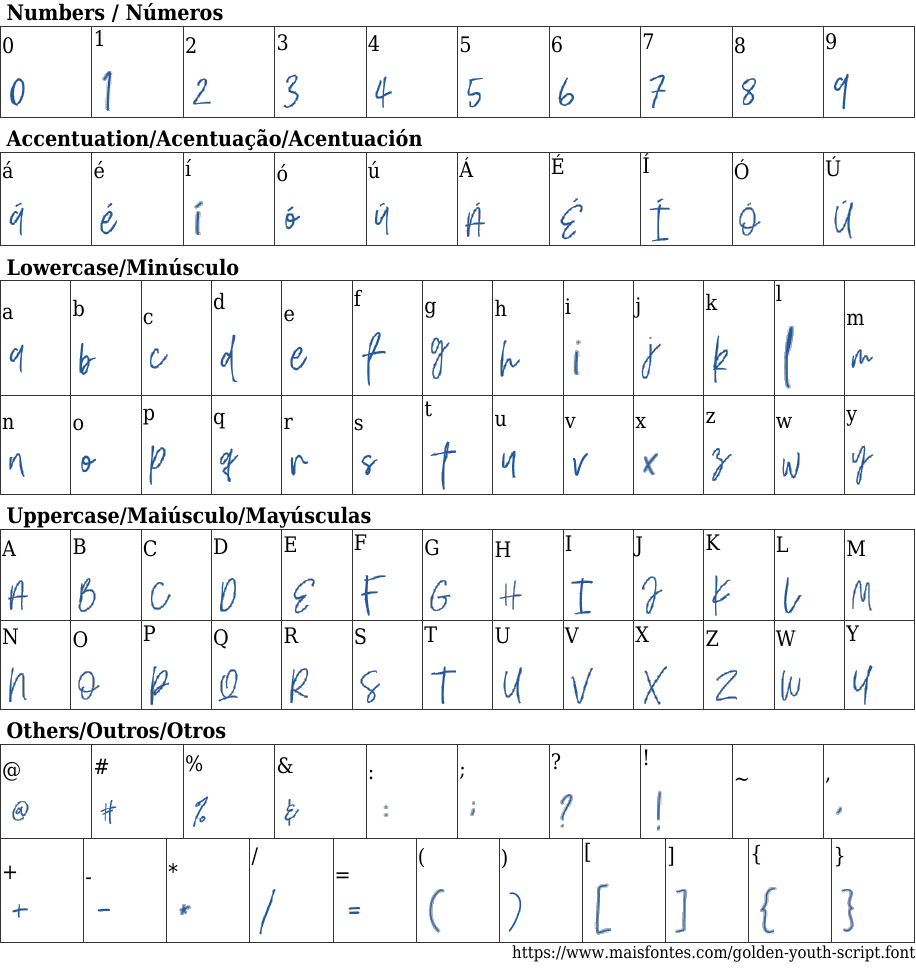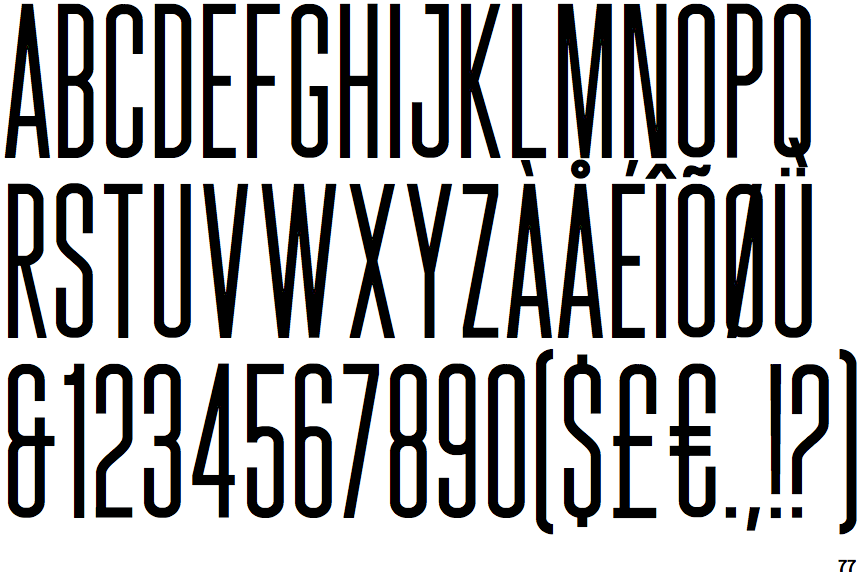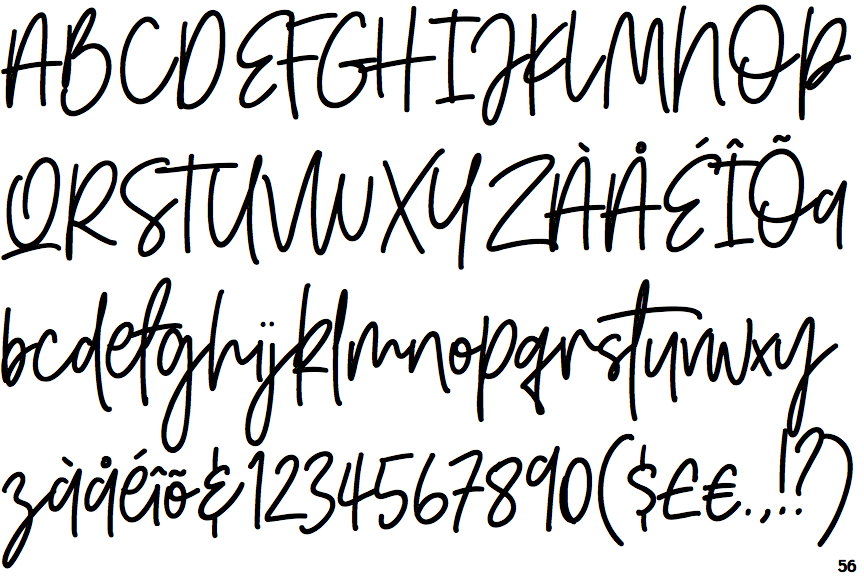
Golden Youth Font Free . Introducing the golden youth font duo; This combination of fonts lends a harmonious modernity and luxury. Logos & branding, packaging design, social media posts, advertisements & product designs. Link to purchase full version and commercial license : Golden youth font is free for personal use. The golden youth script font has a script typography and is great for elegant. Golden youth typeface consists of sans and script typefaces; The golden youth script alternative. A stylish & modern harmony of sans & script typefaces.
Golden youth font is free for personal use. Link to purchase full version and commercial license : Logos & branding, packaging design, social media posts, advertisements & product designs. Golden youth typeface consists of sans and script typefaces; The golden youth script font has a script typography and is great for elegant. This combination of fonts lends a harmonious modernity and luxury. The golden youth script alternative. Introducing the golden youth font duo; A stylish & modern harmony of sans & script typefaces.
Golden Youth Font Free The golden youth script font has a script typography and is great for elegant. Introducing the golden youth font duo; Golden youth typeface consists of sans and script typefaces; The golden youth script alternative. A stylish & modern harmony of sans & script typefaces. Link to purchase full version and commercial license : This combination of fonts lends a harmonious modernity and luxury. The golden youth script font has a script typography and is great for elegant. Golden youth font is free for personal use. Logos & branding, packaging design, social media posts, advertisements & product designs.
Golden Youth Script Free Font Download MaisFontes Golden Youth Font Free This combination of fonts lends a harmonious modernity and luxury. Logos & branding, packaging design, social media posts, advertisements & product designs. The golden youth script font has a script typography and is great for elegant. Golden youth typeface consists of sans and script typefaces; Link to purchase full version and commercial license : A stylish & modern harmony of. Golden Youth Font Free.
Identifont Golden Youth Caps Golden Youth Font Free The golden youth script font has a script typography and is great for elegant. Link to purchase full version and commercial license : Golden youth typeface consists of sans and script typefaces; Golden youth font is free for personal use. The golden youth script alternative. A stylish & modern harmony of sans & script typefaces. This combination of fonts lends. Golden Youth Font Free.
Golden Youth Font Duo on Behance Golden Youth Font Free Introducing the golden youth font duo; Golden youth typeface consists of sans and script typefaces; A stylish & modern harmony of sans & script typefaces. Link to purchase full version and commercial license : Logos & branding, packaging design, social media posts, advertisements & product designs. The golden youth script font has a script typography and is great for elegant.. Golden Youth Font Free.
Golden Youth Font Free werohmedia Golden Youth Font Free Introducing the golden youth font duo; The golden youth script alternative. Logos & branding, packaging design, social media posts, advertisements & product designs. Link to purchase full version and commercial license : This combination of fonts lends a harmonious modernity and luxury. A stylish & modern harmony of sans & script typefaces. Golden youth font is free for personal use.. Golden Youth Font Free.
Identifont Golden Youth Script Golden Youth Font Free Link to purchase full version and commercial license : Golden youth font is free for personal use. The golden youth script font has a script typography and is great for elegant. This combination of fonts lends a harmonious modernity and luxury. Golden youth typeface consists of sans and script typefaces; Introducing the golden youth font duo; A stylish & modern. Golden Youth Font Free.
Golden Texture Five Moving Youth Design Font, Five Movements Youth Golden Youth Font Free A stylish & modern harmony of sans & script typefaces. Golden youth font is free for personal use. Introducing the golden youth font duo; The golden youth script alternative. Golden youth typeface consists of sans and script typefaces; Link to purchase full version and commercial license : Logos & branding, packaging design, social media posts, advertisements & product designs. The. Golden Youth Font Free.
Golden Youth Font YouWorkForThem Golden Youth Font Free Link to purchase full version and commercial license : Introducing the golden youth font duo; Golden youth typeface consists of sans and script typefaces; This combination of fonts lends a harmonious modernity and luxury. The golden youth script font has a script typography and is great for elegant. Golden youth font is free for personal use. Logos & branding, packaging. Golden Youth Font Free.
Golden Youth Font Free A stylish & modern harmony of sans & script typefaces. Link to purchase full version and commercial license : This combination of fonts lends a harmonious modernity and luxury. Golden youth typeface consists of sans and script typefaces; The golden youth script alternative. The golden youth script font has a script typography and is great for elegant. Golden youth font. Golden Youth Font Free.
Golden Youth Fonts Read more on WE AND THE COLOR or get them on Golden Youth Font Free A stylish & modern harmony of sans & script typefaces. This combination of fonts lends a harmonious modernity and luxury. Link to purchase full version and commercial license : Introducing the golden youth font duo; Logos & branding, packaging design, social media posts, advertisements & product designs. Golden youth font is free for personal use. The golden youth script font. Golden Youth Font Free.